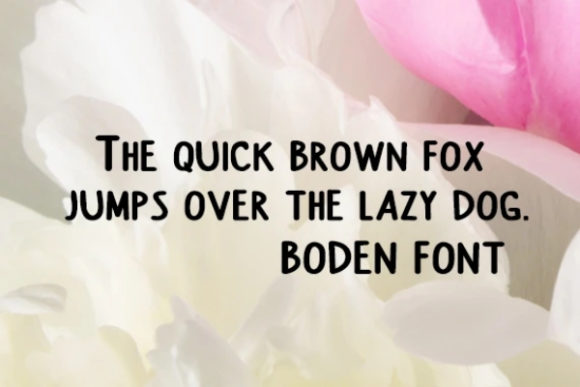
Boden Alpha Font: Unleash Your Creativity with a Quirkily Enchanting Display Font
In the realm of typography, few fonts manage to capture the essence of fun, quirkiness, and authenticity as effectively as Boden Alpha. This captivating display font is designed to transform any creative idea into a standout masterpiece, making it a must-have for designers, crafters, and anyone looking to add a dash of personality to their projects.
The Essence of Boden Alpha
Boden Alpha embodies a unique blend of playfulness and sophistication, making it an ideal choice for a wide range of creative endeavors. Whether you’re working on a branding project, crafting a compelling headline, or simply looking to add some flair to your digital or print materials, Boden Alpha is sure to make a lasting impression.
One of the defining characteristics of Boden Alpha is its ability to convey a sense of quirkiness and authenticity. This font doesn’t just display text; it tells a story. Its enchanting and somewhat whimsical design invites viewers to engage with the content on a more personal level, making it perfect for projects that require a touch of personality.
Key Features of Boden Alpha Font
- Unique Quirkiness: Boden Alpha’s design is distinctly quirky, setting it apart from more traditional fonts. Its unique character makes it an excellent choice for projects that need to stand out.
- Authenticity: Despite its playful nature, Boden Alpha exudes a sense of authenticity. It’s perfect for brands and creators looking to showcase their genuine voice.
- Versatility: Boden Alpha is a versatile display font that can be used across various mediums, from digital platforms to print materials.
- Legibility: While it boasts a unique design, Boden Alpha doesn’t compromise on legibility. It’s easy to read, even in larger sizes, making it suitable for headlines and titles.
Applications of Boden Alpha Font
The versatility of Boden Alpha makes it suitable for a myriad of applications. Here are some of the most popular uses:
- Branding: Boden Alpha can serve as a distinctive voice for your brand, setting you apart from competitors.
- Advertising: Use Boden Alpha to create eye-catching headlines and advertisements that grab attention.
- Packaging: Add a personal touch to your product packaging with Boden Alpha.
- Digital Content: Boden Alpha can elevate your website, blog, or social media content, making it more engaging for your audience.
- Crafting and DIY Projects: For crafters and DIY enthusiasts, Boden Alpha can add a professional and personalized touch to labels, titles, and descriptions.
Why Choose Boden Alpha?
In a world where standing out is increasingly difficult, Boden Alpha offers a refreshing alternative. Its unique blend of quirkiness, authenticity, and legibility makes it an invaluable tool for anyone looking to elevate their creative projects.
Moreover, Boden Alpha is more than just a font; it’s a way to communicate your brand’s or project’s personality. In a digital age where audiences crave authenticity and connection, using a font like Boden Alpha can significantly enhance your project’s impact.
Boden Alpha is not just a display font; it’s a creative companion that can help bring your ideas to life. Its enchanting design, coupled with its quirky and authentic vibe, makes it a standout choice for designers, crafters, and creatives worldwide.
Whether you’re embarking on a new branding journey, looking to spice up your advertising materials, or simply seeking to add a dash of personality to your digital or print projects, Boden Alpha is an excellent choice. Embrace the fun, quirkiness, and authenticity that Boden Alpha has to offer, and watch your creative projects transform into true standouts.